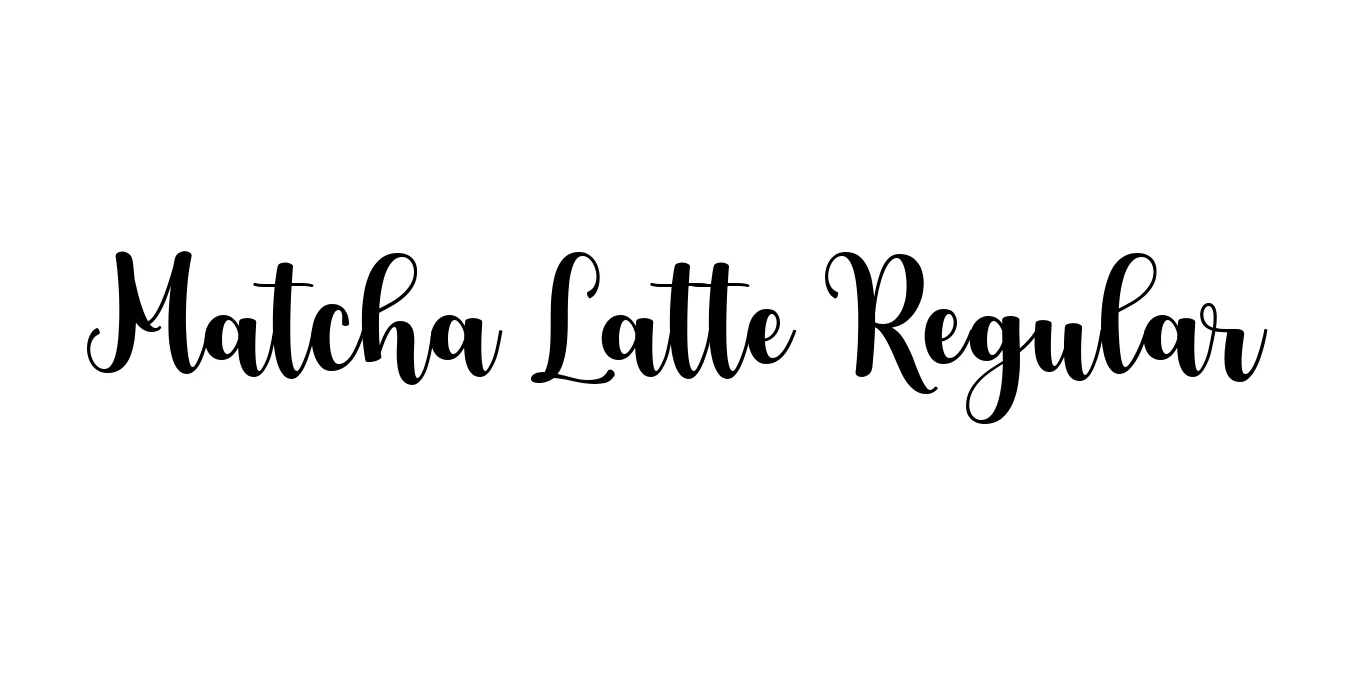
Matcha Latte Regular
Designed by Letterhend Studio
Matcha Latte Regular is a charming and fluid script font that captures the essence of handmade artistry. Designed by Letterhend Studio, this typeface features smooth, flowing strokes and a balanced weight that makes it highly legible yet full of personality. Its organic feel is reminiscent of modern calligraphy, making it an ideal choice for projects that require a touch of warmth and approachability without being overly formal.
Since its release, Matcha Latte has become a favorite among designers for its versatility in creative branding and lifestyle content. It excels in contexts where a human touch is needed, such as cafe menus, greeting cards, and social media graphics. The font often includes a variety of alternates and ligatures, allowing for a custom, hand-lettered look that elevates any design composition seamlessly.
Matcha Latte Regular Best Uses
Perfect for logos that need a friendly, artisanal, and approachable feel.
Ideal for coffee shops, bakeries, and organic food business menus.
Great for creating engaging, relatable quote graphics and lifestyle posts.